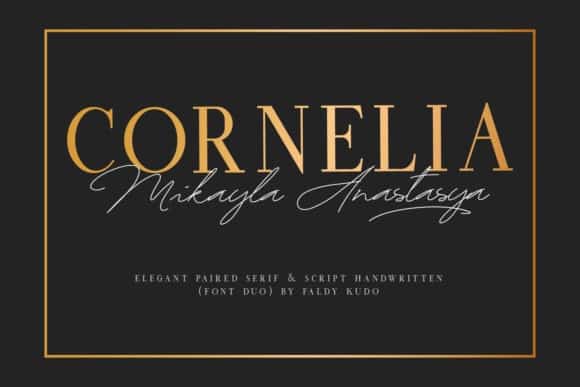
Cornelia Font Duo
Cornelia Font  this is an amazing serif font that can be used in a classic style or in a more expressive and elegant with alternative and ligatures, of which there are many. Set the style and mood of your design, because just a few touches can absolutely change it.
With it, you can easily realize all your ideas. Classical forms, smooth lines, sharp serifs, weightless style, various weaves, long tails, all this and much more will give you many options for creating your project and will not leave indifferent even the most demanding.